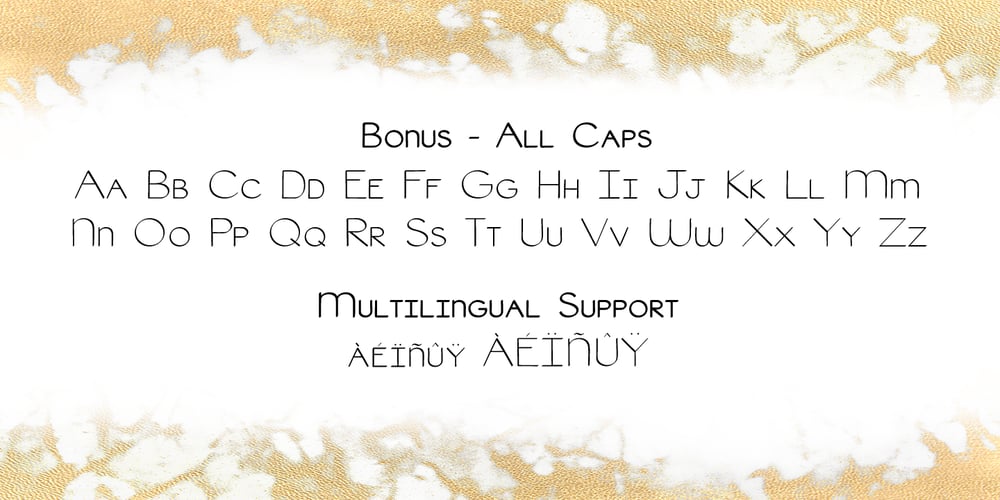
Stargazer Font Family was designed by Shannyn Palmer and published by Shannyn Creates. Stargazer contains 2 styles and family package options. Introducing Stargazer – featuring an elegant, handwritten, script typeface with ligatures, swashes, lots of extras, and a BONUS handwritten All Caps typeface (when purchased altogether as a family)! Stargazer Script contains 900+ characters and glyphs, featuring multilingual support for most Western European languages, 2 connecting sets of swashes, 3 full sets of beginning and ending swashes, and over a dozen ligatures to fully customize your designs! Access to these incredible open type features is available through the Glyphs palettes in programs like Adobe Illustrator and InDesign. You may also access the open type features with Microsoft Word 2010 or later. Overall, this font family is simply beautiful, and will be the perfect addition and your go-to font for your creative endeavors. Enjoy!